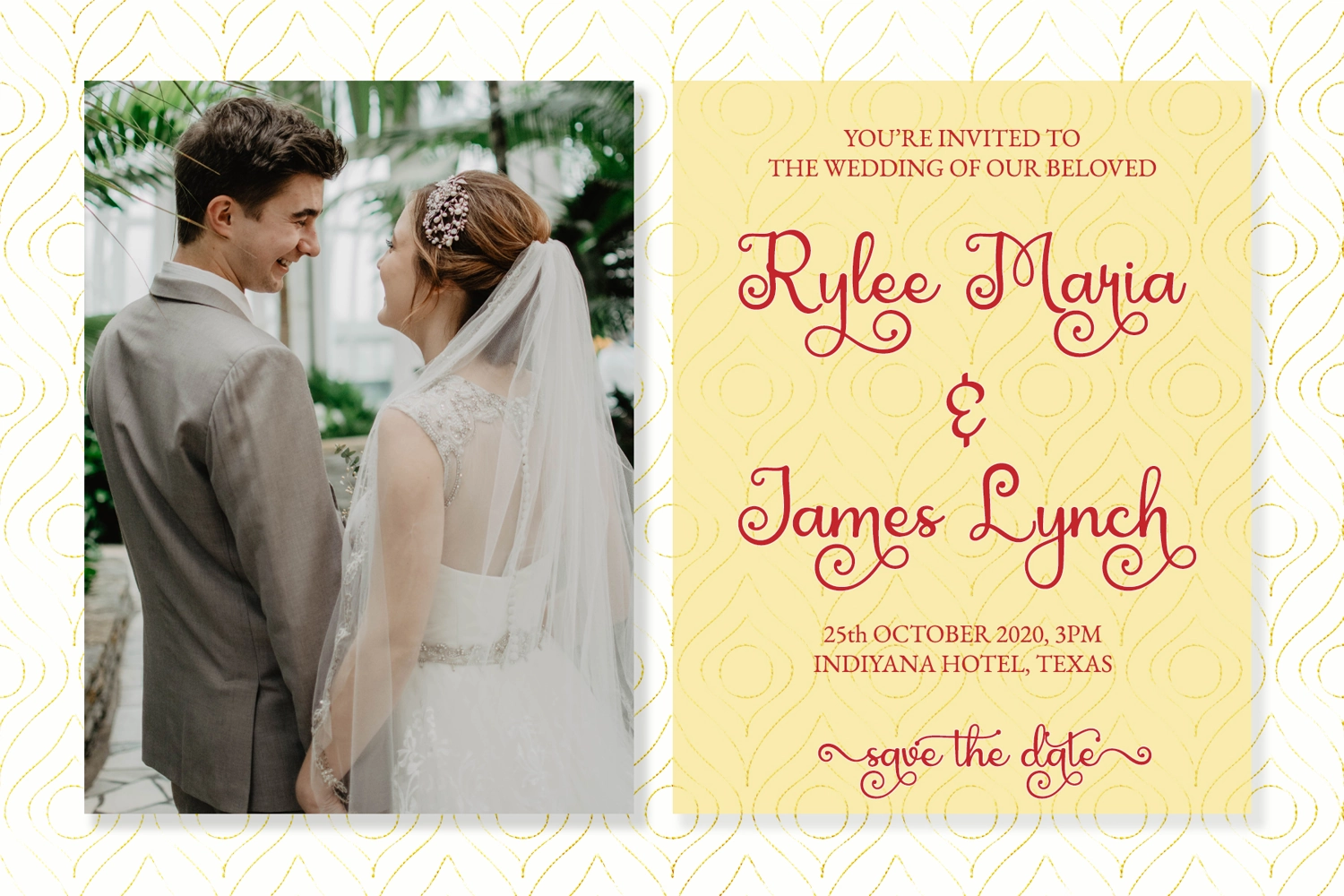
Kayla Katrina is beautiful script represents elegance and modernity. It has feminine and masculine looks with many beautiful swashes. Make your design into the next level!
Kayla Katrina is such the perfect script for any kind of your project, such as advertisements, branding, graphic design, quotes, wedding design, logo for online or offline business, photography, and others. Make your business more awesome!Files included: OTF, TTF